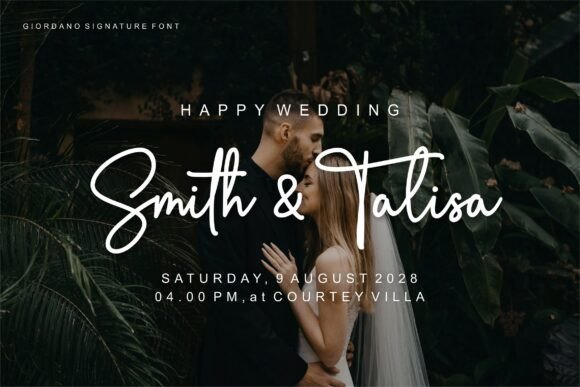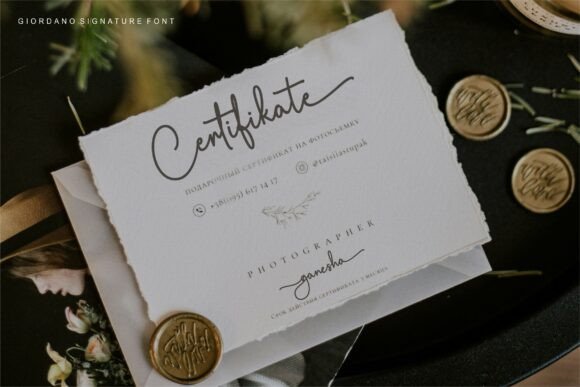
Introduction to Giordano Font
As a designer, have you ever struggled to find the perfect font for your creative project? Perhaps you’re working on a wedding invitation and want a font that exudes elegance and sophistication. Or maybe you’re designing a logo for a fashion brand and need a font that captures the essence of authentic handwriting. Whatever your project may be, the Giordano Font is a valuable design resource that can elevate your work to the next level.
| 👤 Author | Raffa Creative |
With its smooth strokes and stylish curves, the Giordano Font is designed to mimic the look of authentic handwriting, making it an ideal choice for personal branding, social media posts, and signature-style designs. Whether you’re working on a high-quality design project or just need a free download for a quick social media post, the Giordano Font is a versatile and reliable option that can add a touch of sophistication and personality to any project.
Key Features of Giordano Font
- High-quality font with a transparent background, ideal for creative projects that require a clean and minimalist design.
- Features a unique and modern design, perfect for adding a touch of sophistication to any creative project.
- Designed to be highly legible and versatile, making it suitable for use in a wide range of creative projects, from digital designs to printed materials.
- Part of a larger design resource, offering a range of complementary fonts and design elements to enhance your creative project.
Honest Review: Giordano Font
As a designer, I’m always on the lookout for high-quality design resources to enhance my creative projects. Recently, I stumbled upon the Giordano Font, and I’m excited to share my thoughts on this versatile font.
What works well: ✨ The Giordano Font offers a clean and modern design aesthetic that’s perfect for a variety of creative projects, from logos to brochures. Its sleek and sophisticated look makes it an excellent choice for branding and marketing materials. Additionally, the font is highly customizable, allowing me to adjust the transparency background to suit my design needs.
- High-quality design that’s perfect for logos, brochures, and marketing materials
- Highly customizable, including adjustable transparency background
Limitations: ⚠️ While the Giordano Font is a great addition to my design arsenal, I did encounter some limitations. The font family is relatively small, with only a few weights and styles available. This may not be ideal for projects that require a wide range of font variations.
Overall, I’m impressed with the Giordano Font’s high-quality design and versatility. It’s an excellent choice for designers who need a reliable and customizable font for their creative projects. While it may have some limitations, I highly recommend giving it a try.
The Giordano Font is a high-quality, free download design resource ideal for creative projects. Its unique style and transparent background make it a versatile addition to any design.
Getting the Most Out of Giordano Font
For optimal results, use the Giordano Font on a high-quality design and adjust the size and style to suit your creative project.
The Giordano Font is ideal for:
1. Brochures and flyers
2. Business cards and letterheads
3. Social media graphics and ads
Alternatives to Giordano Font